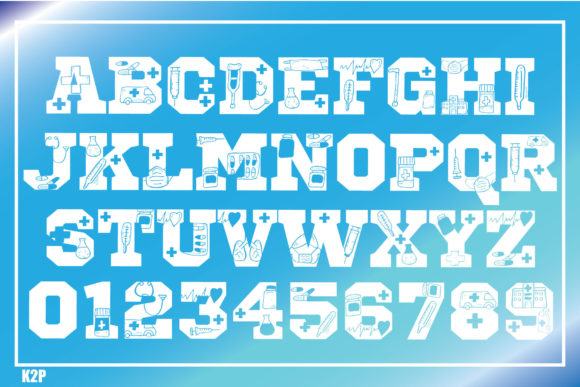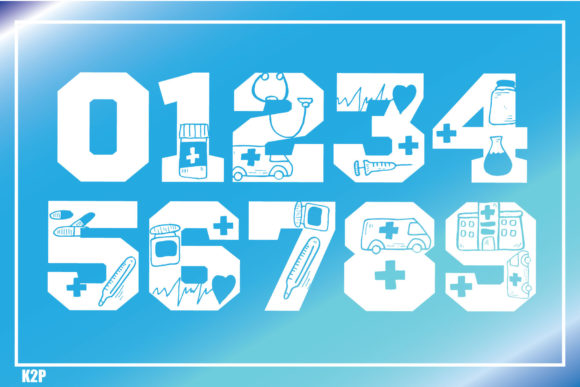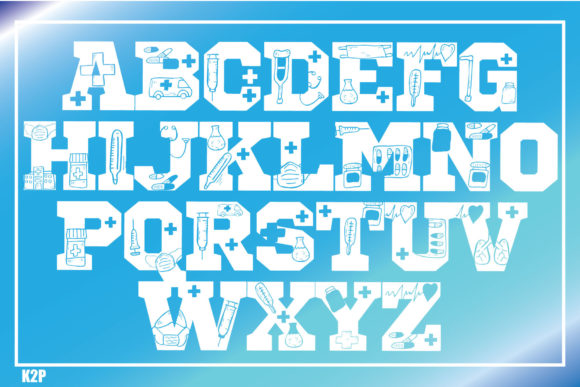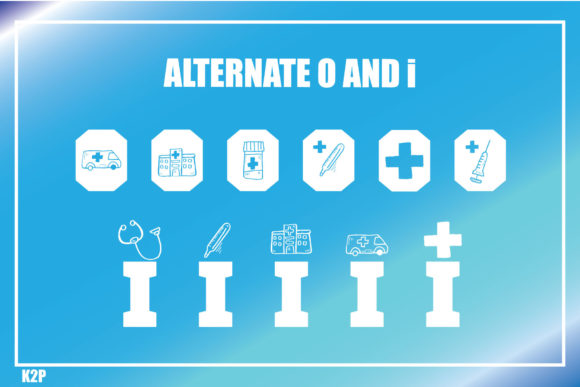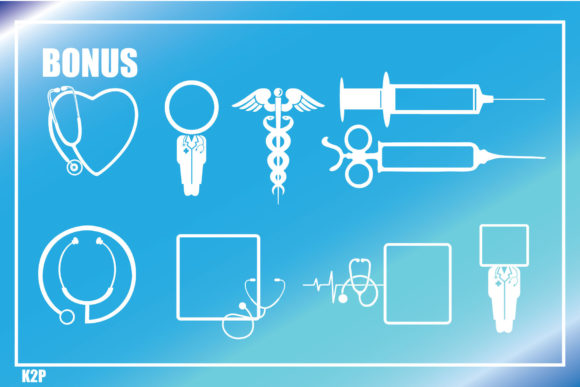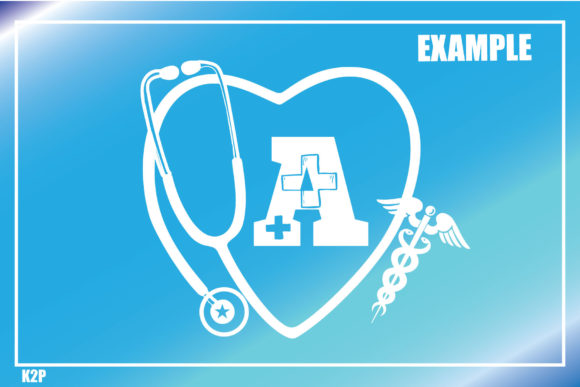
The Hero Font: A Game-Changer for Healthcare Designs
I’ll never forget the time I was working on a project for a local hospital’s marketing campaign. I was tasked with creating a bold, eye-catching poster that would appeal to both medical professionals and patients. As I scrolled through my font library, I stumbled upon the Hero font – a thick lettered and incredibly unique decorative font that immediately caught my attention. Little did I know, it would become my go-to font for all things healthcare-related.
An Honest Review of Hero Font
What I Love About Hero Font
- ✨ Unique and bold design: The Hero font is perfect for making a statement in any design project, especially those related to nurses, doctors, and healthcare staff.
- ✅ PUA encoded: This means that accessing all the glyphs and swashes is a breeze, giving you endless creative possibilities.
- 🌟 Highly versatile: Whether you’re designing a logo, brochure, or social media graphics, the Hero font can adapt to various design ideas and styles.
While the Hero font is an excellent choice for many design projects, there are a few things to keep in mind:
- 🤔 Legibility at small sizes: Due to its bold and decorative nature, the Hero font may not be the best choice for body text or small font sizes.
- ⚠️ Limited use in formal designs: The Hero font’s bold and playful personality may not be suitable for formal or traditional designs, such as academic papers or business reports.
The Backstory Behind Hero Font
The Hero font was designed with the intention of creating a bold and eye-catching font that would appeal to the healthcare industry. The designer, who wishes to remain anonymous, was inspired by the bravery and dedication of medical professionals and wanted to create a font that would reflect their heroic efforts.
Q: What is PUA encoding, and how does it benefit the Hero font?
A: PUA (Private Use Area) encoding allows designers to access a wide range of glyphs and swashes, making it easier to create unique and creative designs with the Hero font.
Q: Is the Hero font suitable for body text or small font sizes?
A: Due to its bold and decorative nature, the Hero font may not be the best choice for body text or small font sizes. It’s better suited for headings, titles, and emphasis text.